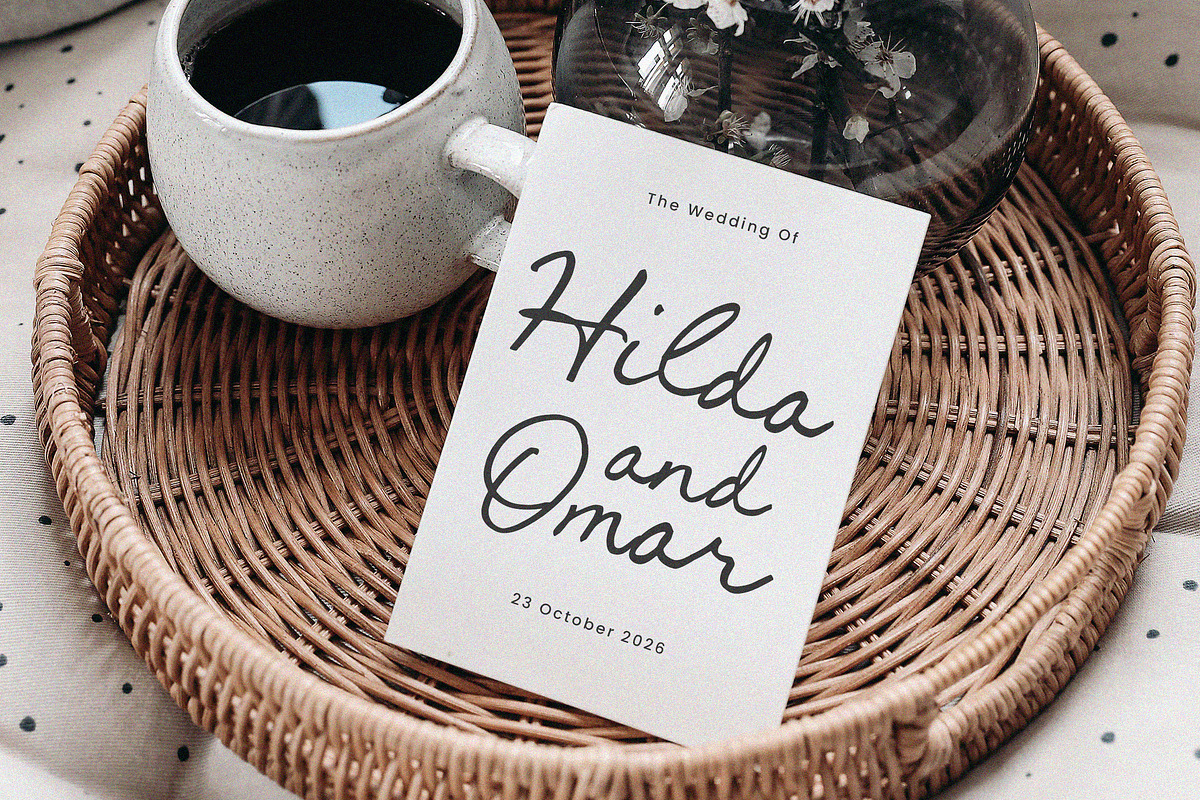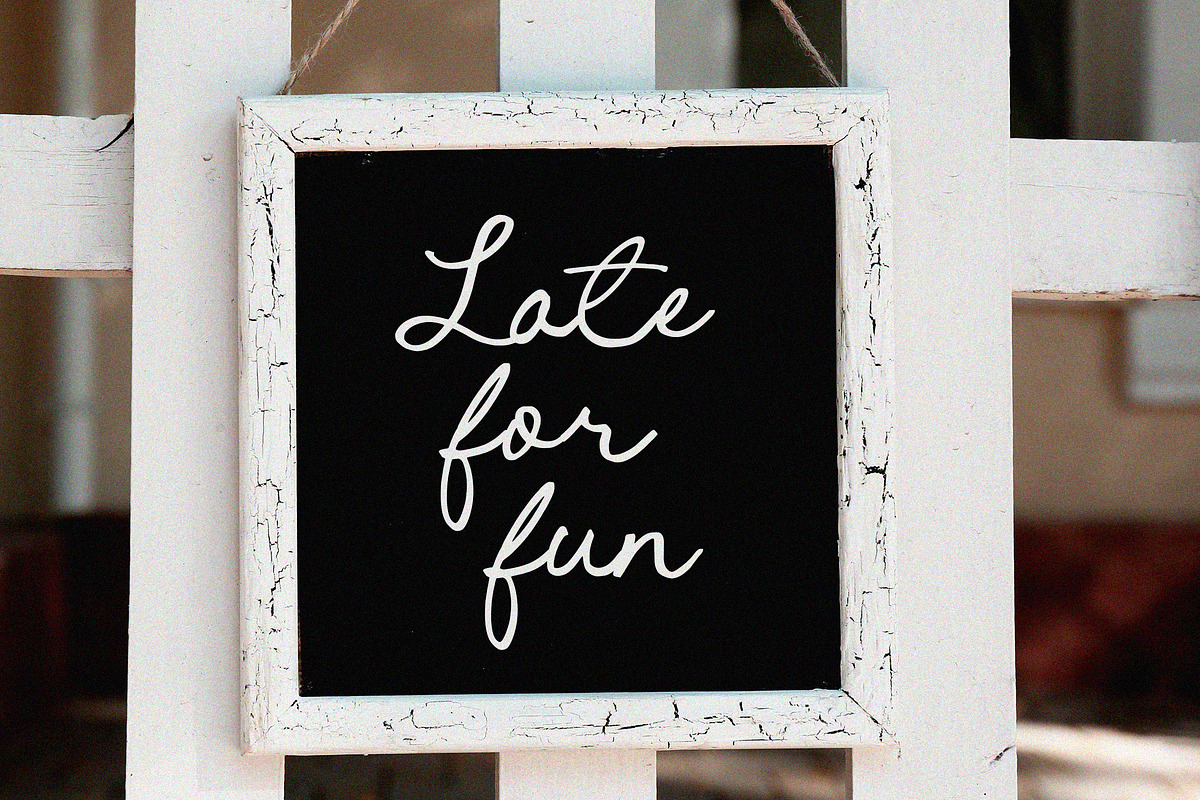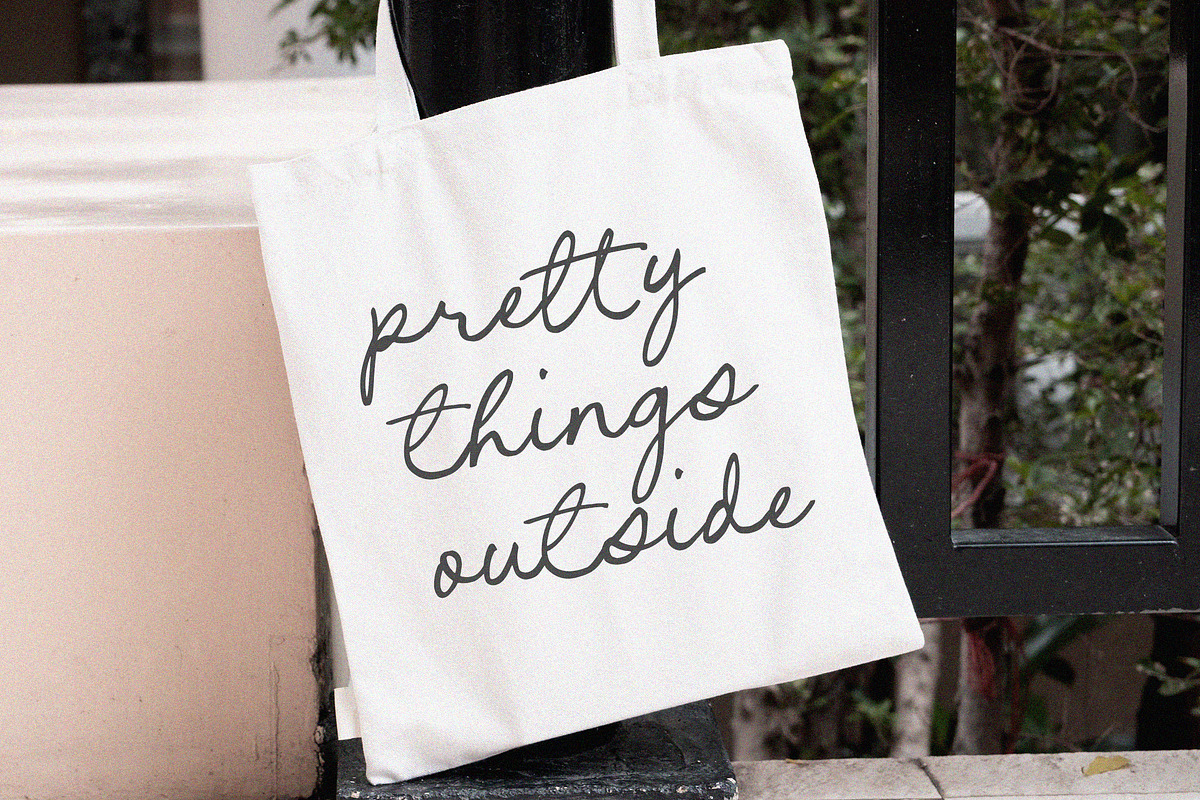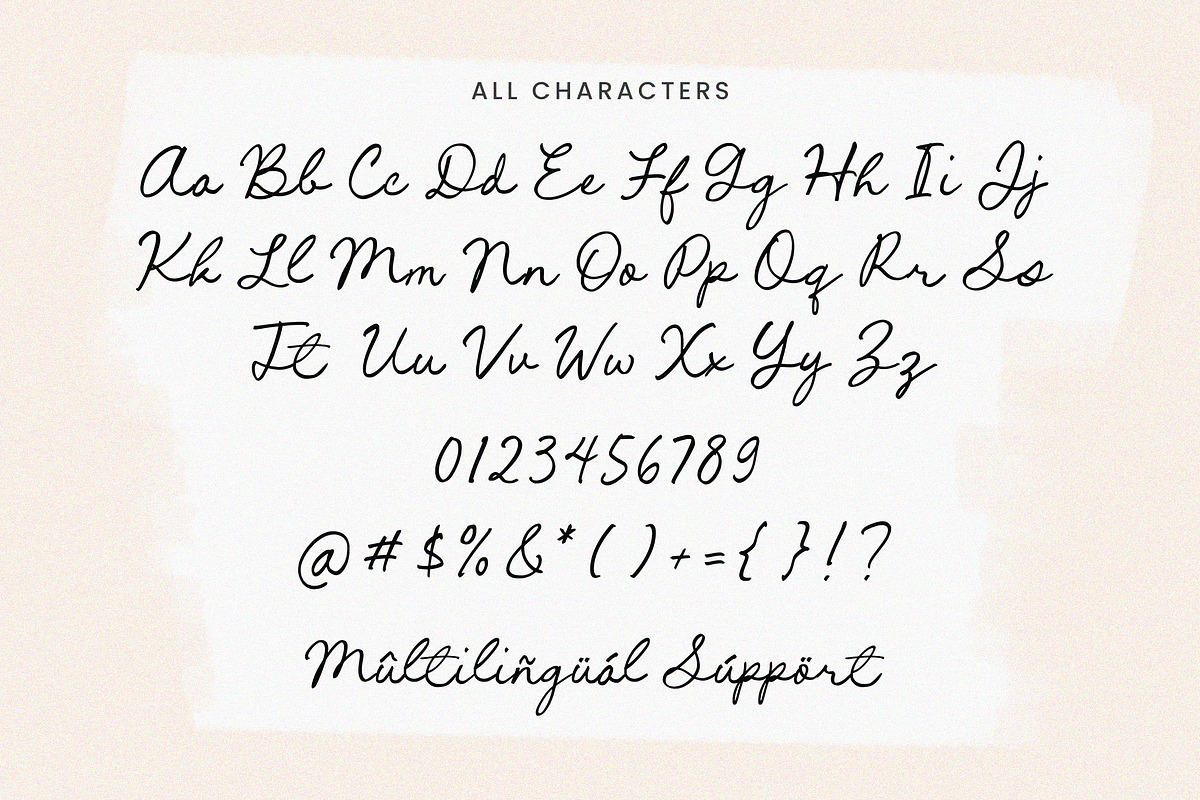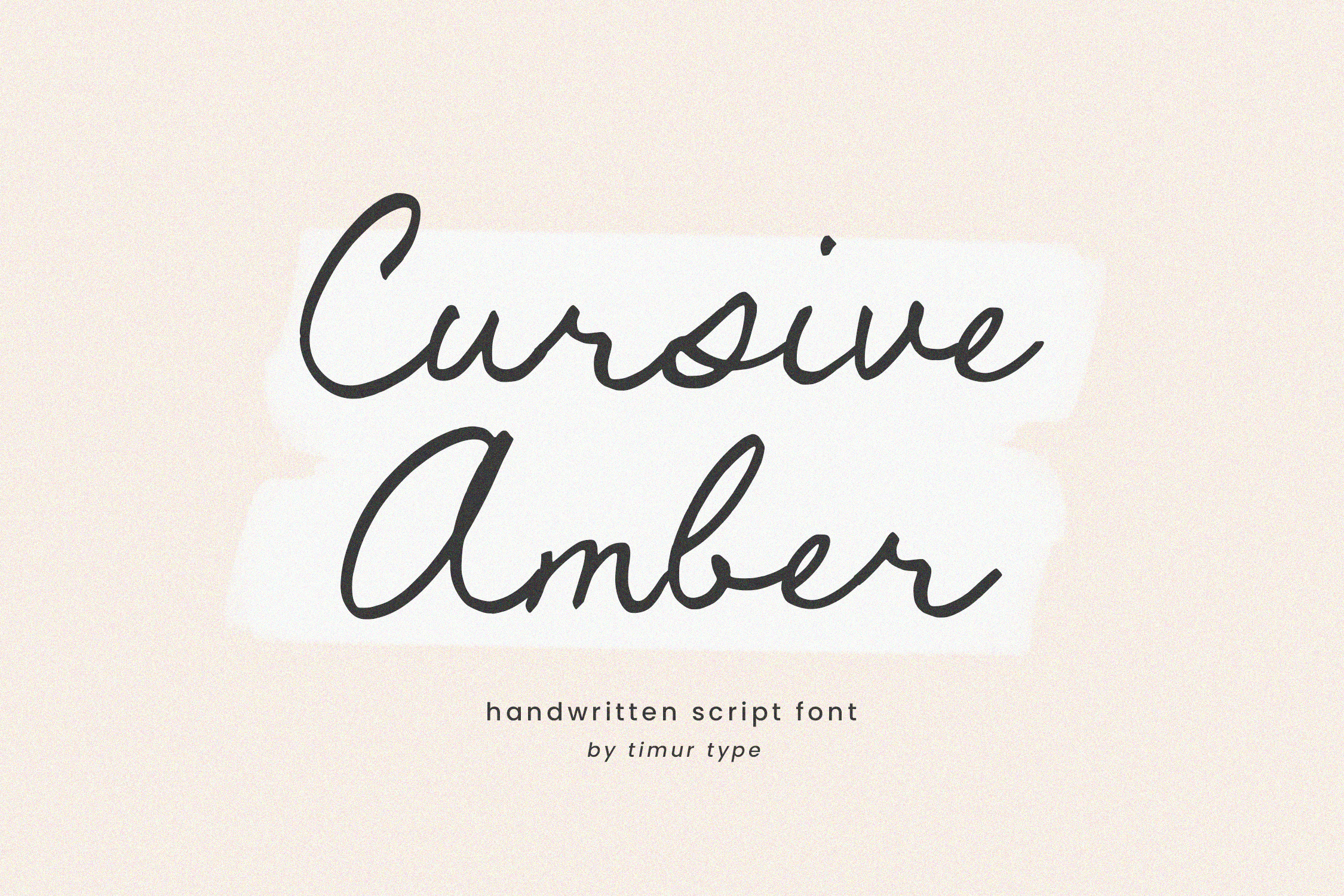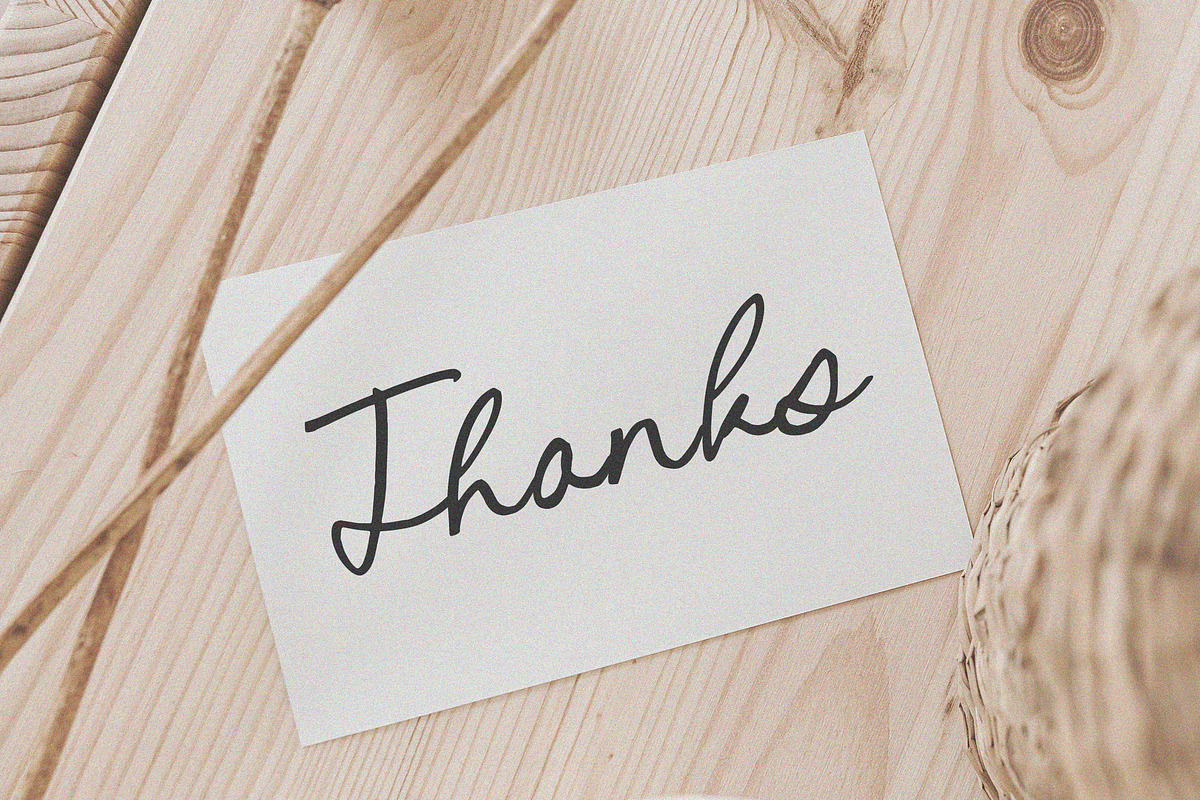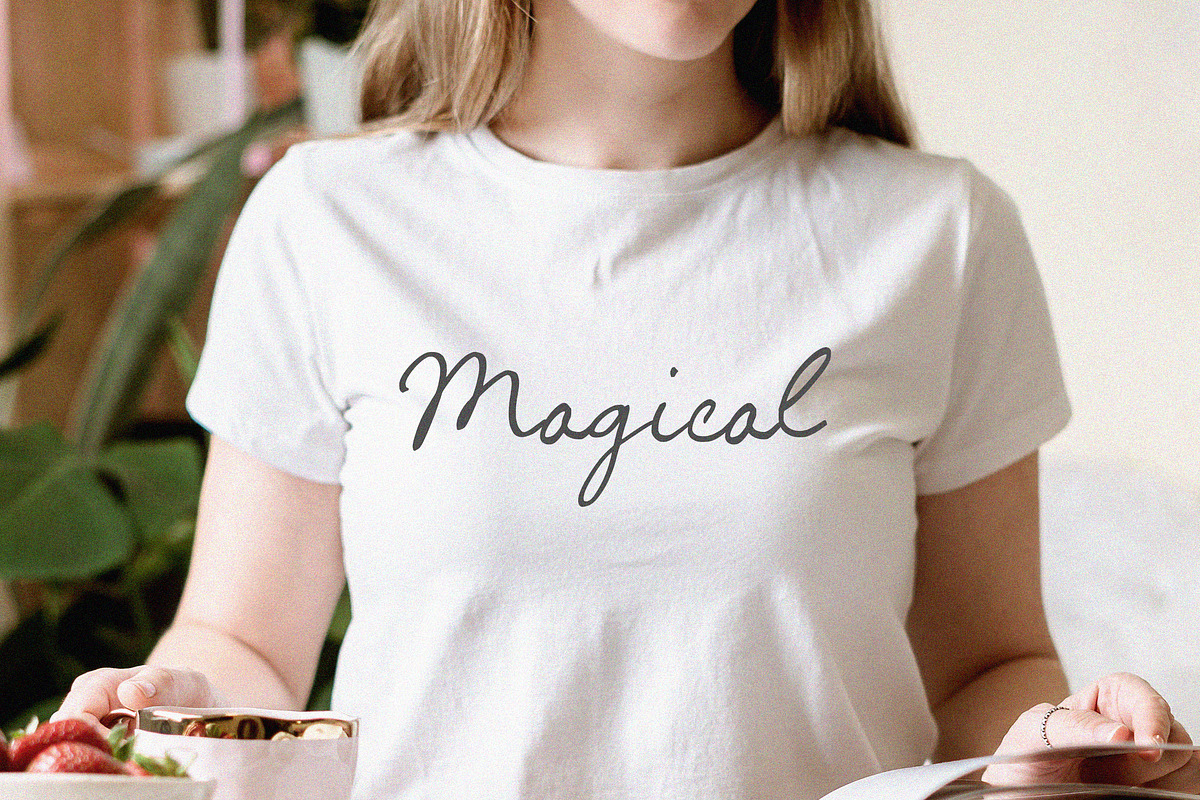
Cursive Amber Font
Introduced by Timurtype Studio!
Cursive Amber is a Handwritten Script Font
This font is a handwritten script font that features smooth, flowing strokes and elegant letter connections, mimicking natural penmanship. Its graceful curves and fluid style create a warm, making it ideal for creative designs such as invitations, logos, and branding. With its balance of sophistication and casual charm, it adds a stylish, human touch to any visual project.
Cursive Amber Font also supports multilingualism